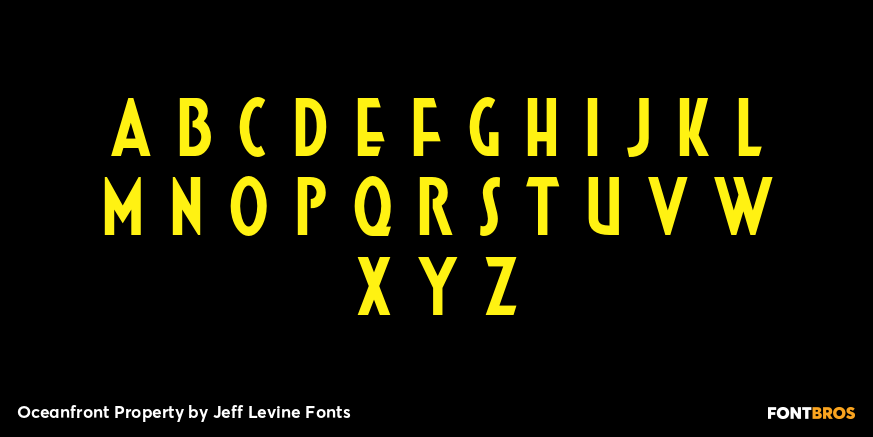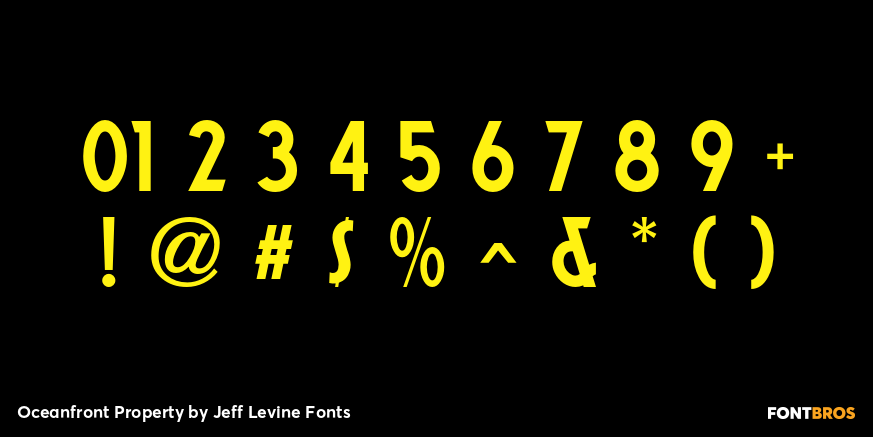
Oceanfront Property
Buy NowOceanfront Property JNL was modeled from the hand lettered title on the cover of the 1932 sheet music for 'There's Oceans of Love by the Beautiful Sea”.
A simple sans, it still reflects the beginnings of the Art Deco Era with its approach to letter forms and varying widths. This type design is available in both regular and oblique versions.